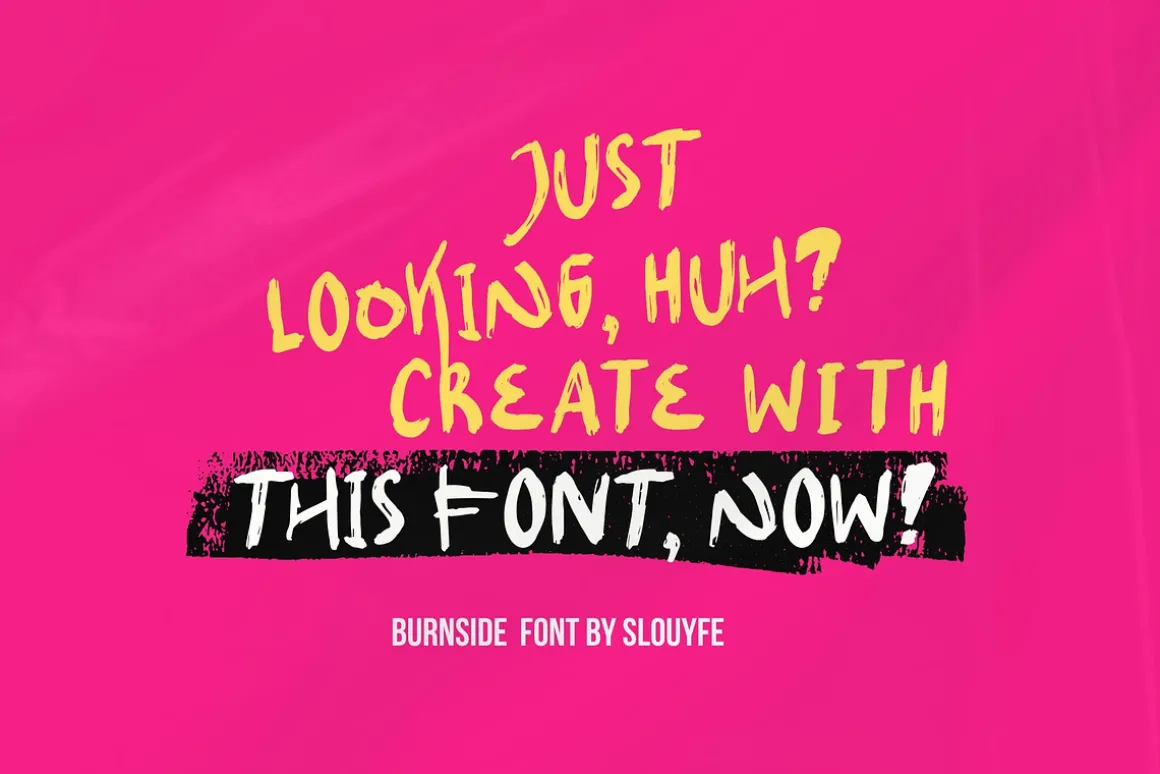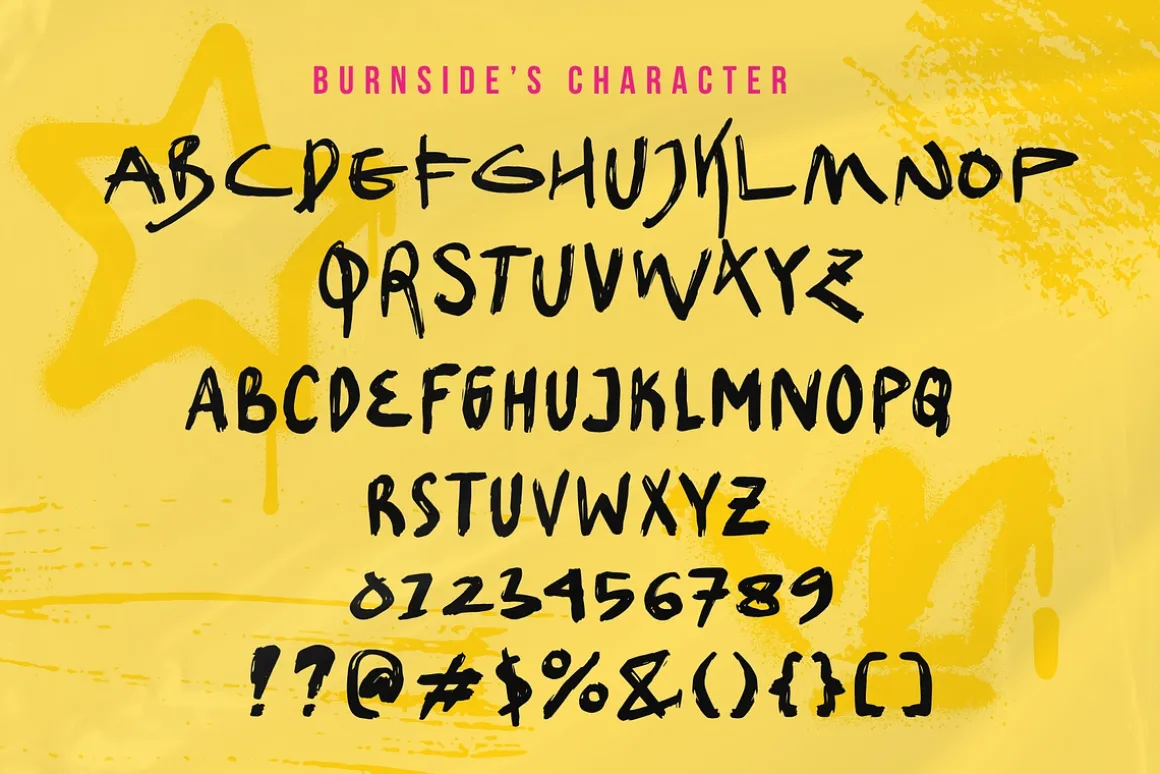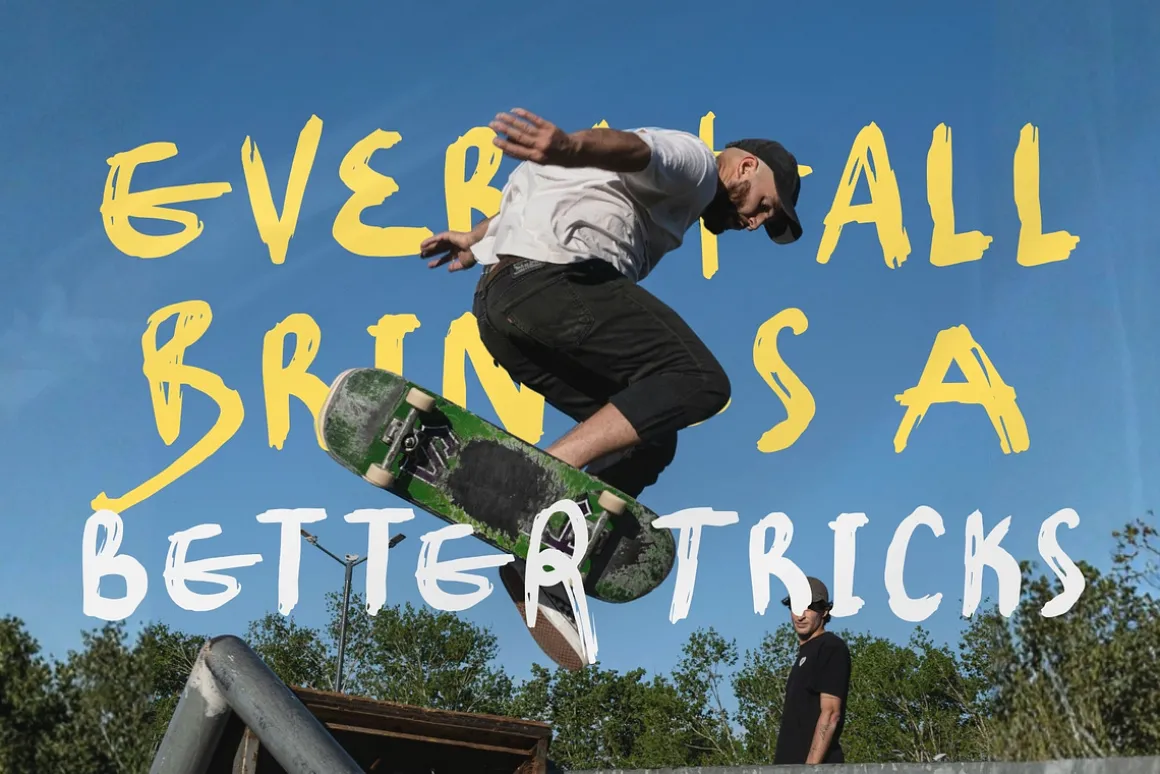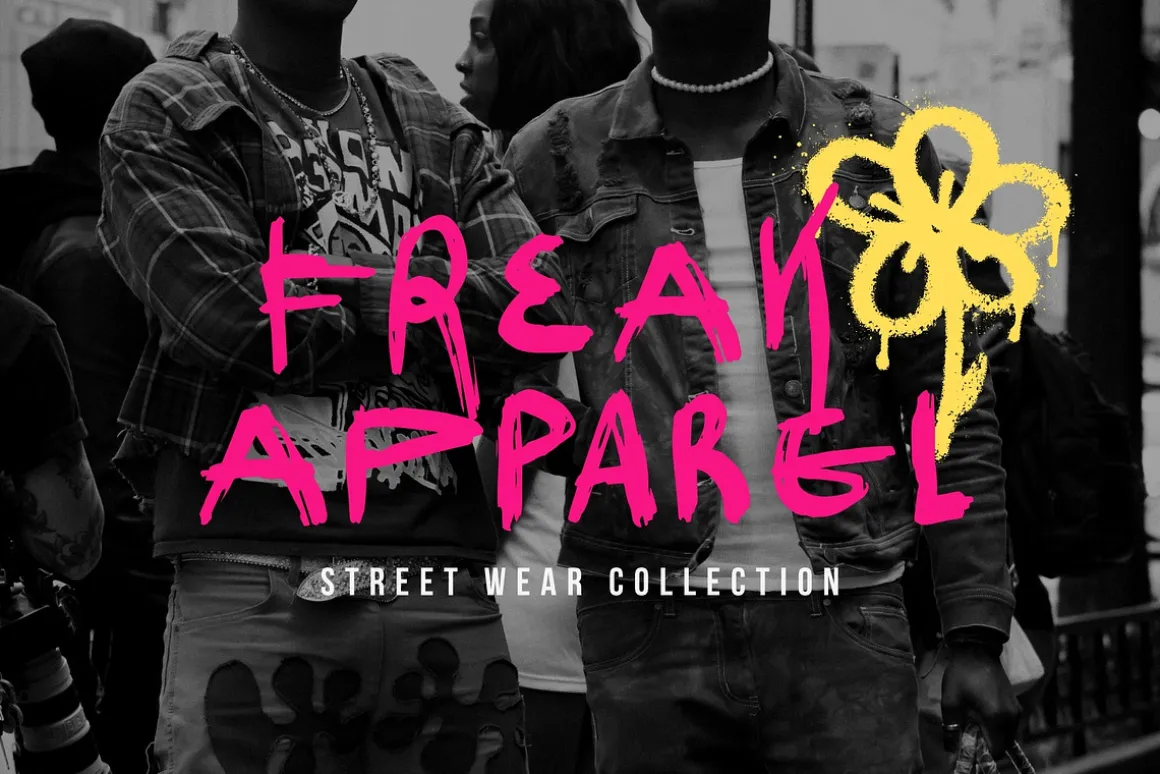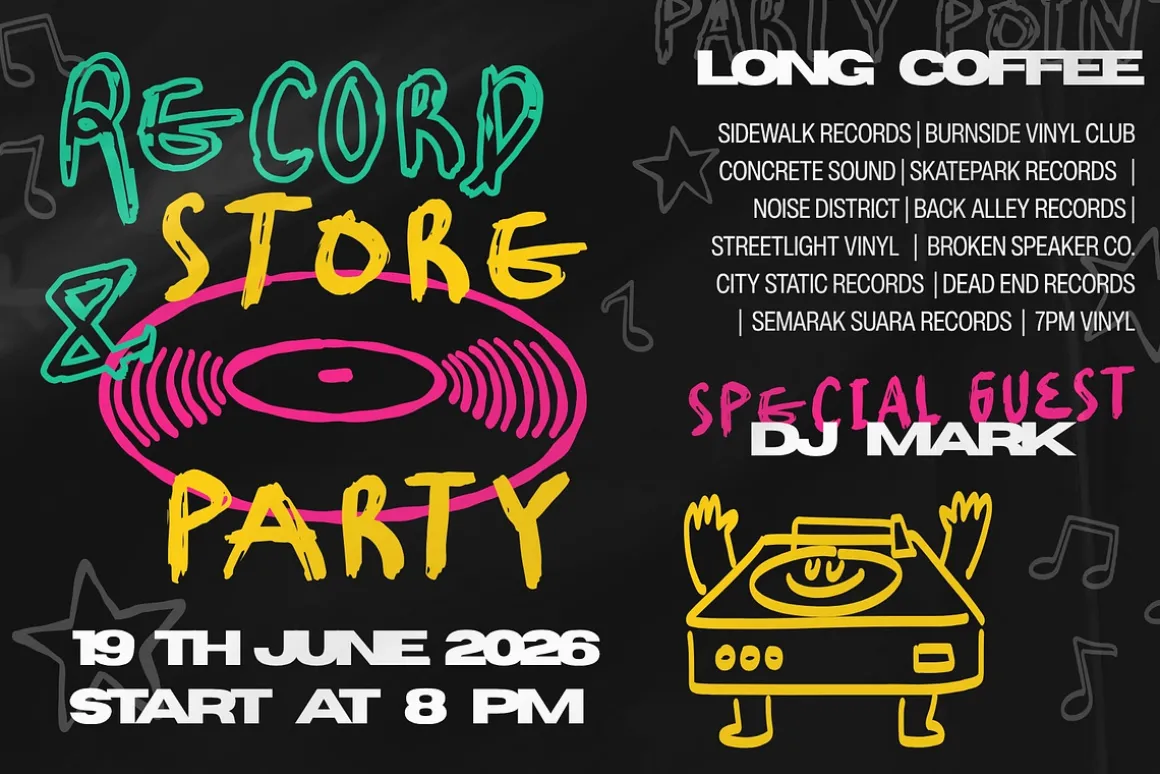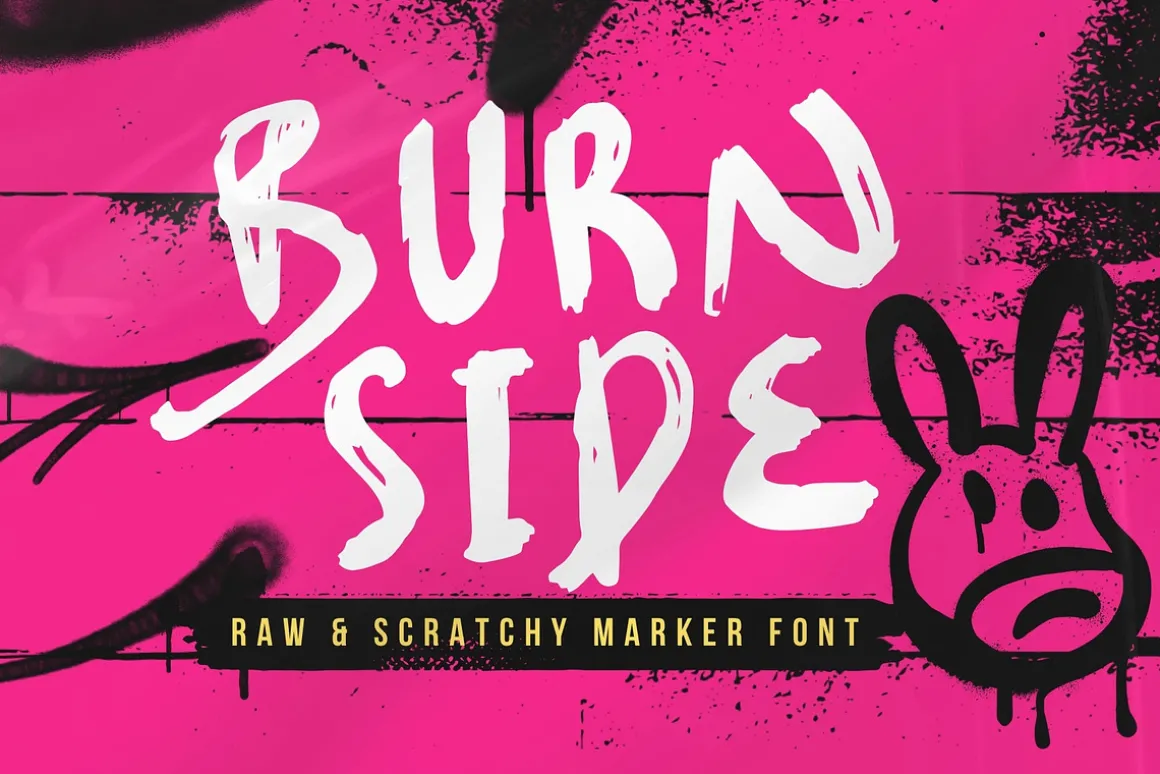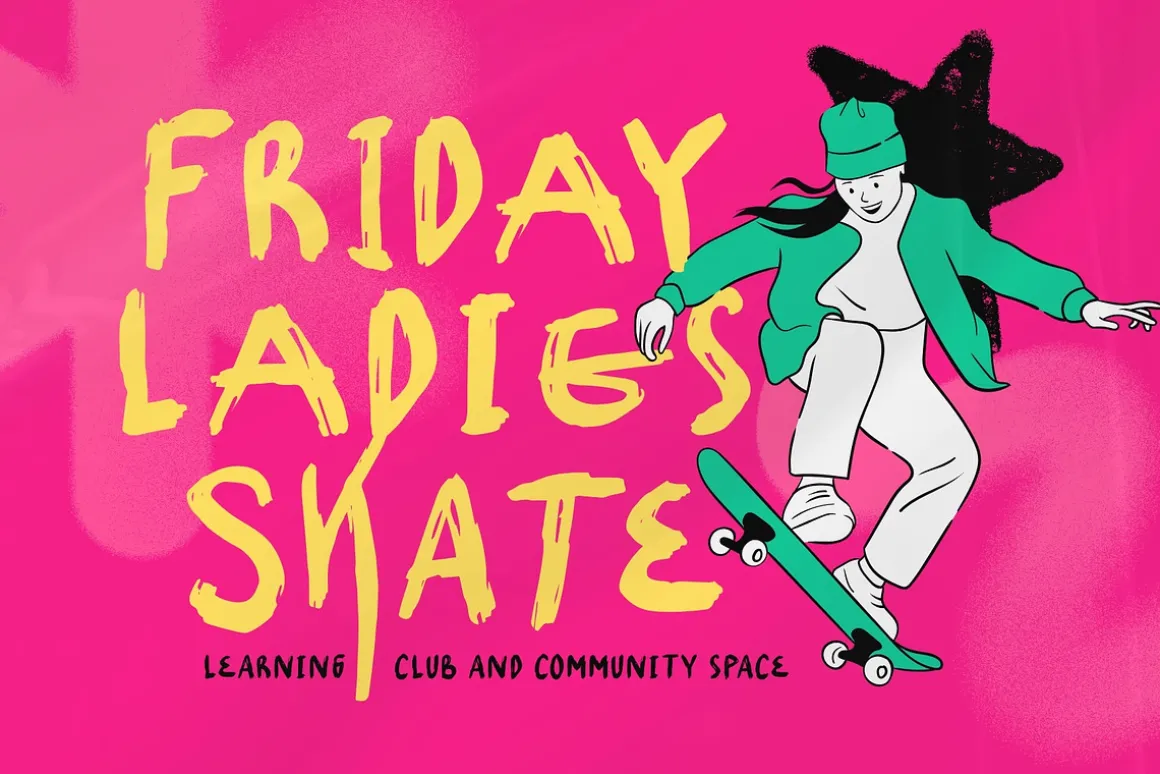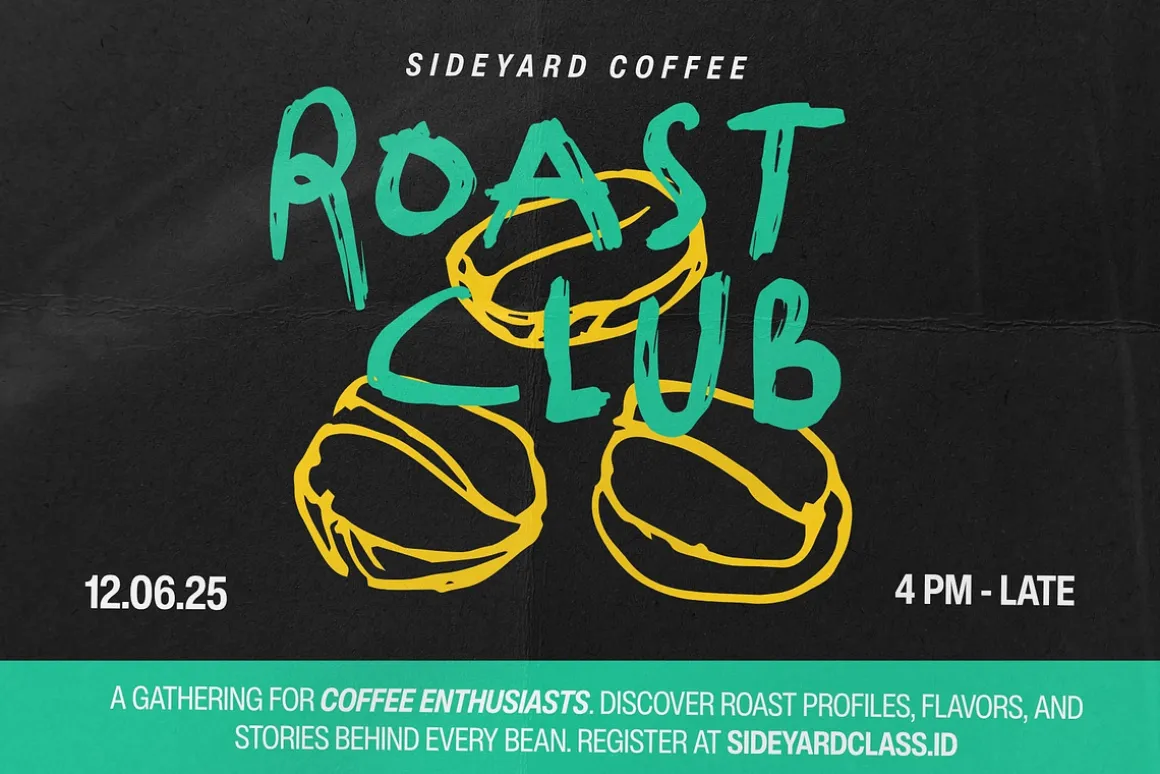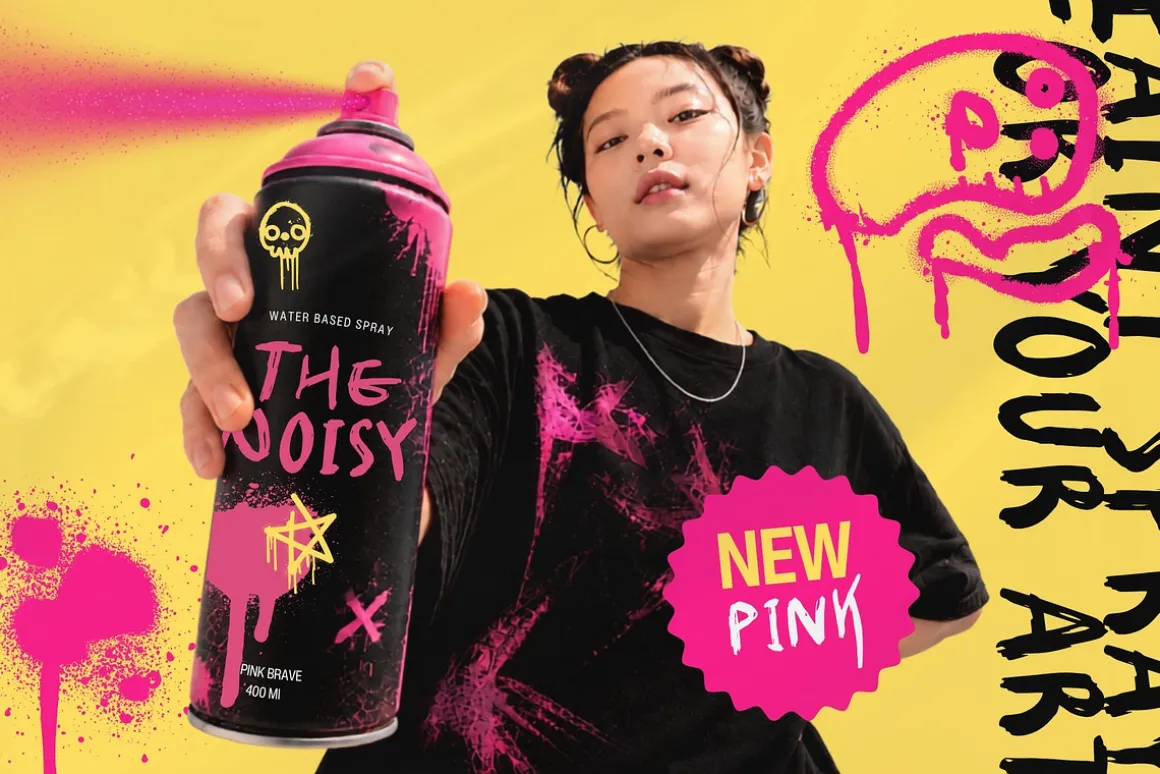
Burn Side is loud, raw, and impossible to ignore. Inspired by urban street art, rough marker tags, and creative chaos, this font delivers bold personality in every letter. The scratchy details and imperfect forms create an authentic handmade look, making it a great choice for music posters, album covers, skate graphics, stickers, branding, and projects that demand a fearless, energetic, and rebellious vibe.